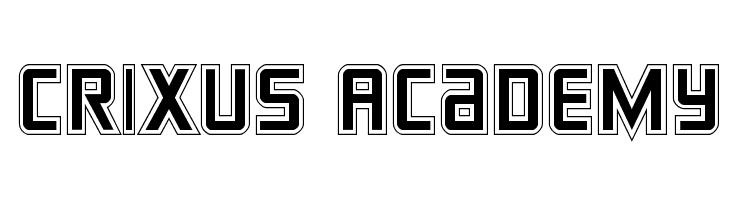
• Crixus Academy schriftart
Bold, geometric font with a three-dimensional outline effect.
• Crixus Academy Italic schriftart
A bold, italicized font with a modern, outlined style.
• Crixus Bold schriftart
A bold, geometric font with a modern and structured design.
• Crixus Bold Italic schriftart
A bold, italicized font with geometric and angular characteristics.
• Crixus Condensed schriftart
A geometric, modern, and condensed font with a clean and bold appearance.
• Crixus Condensed Italic schriftart
A modern, angular, condensed italic font with a dynamic and streamlined appearance.
• Crixus Expanded schriftart
A bold, geometric font with a modern and futuristic style.
• Crixus Expanded Italic schriftart
A modern, expanded italic font with geometric and dynamic letterforms.
• Crixus Italic schriftart
A modern, italicized font with sleek, angular characters and consistent stroke weight.
• Crixus Laser schriftart
A futuristic, geometric font with bold, angular letterforms.